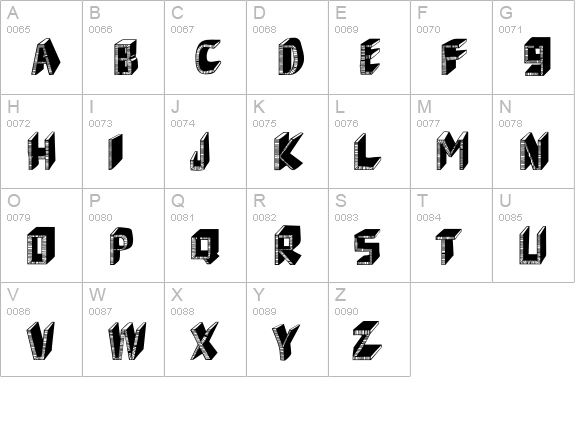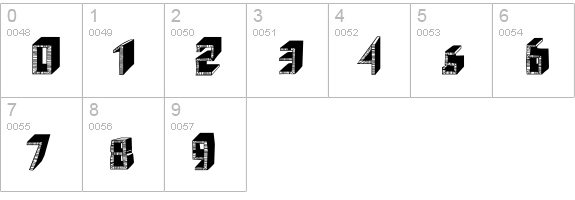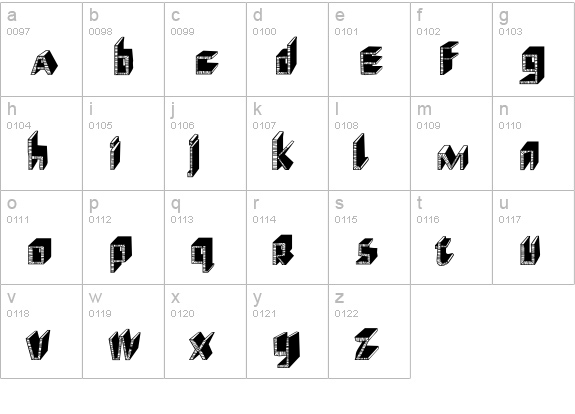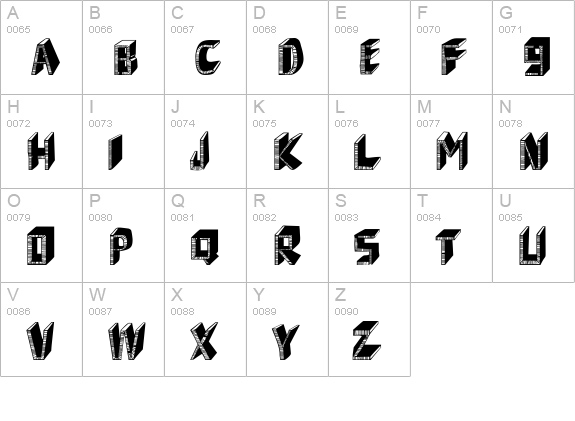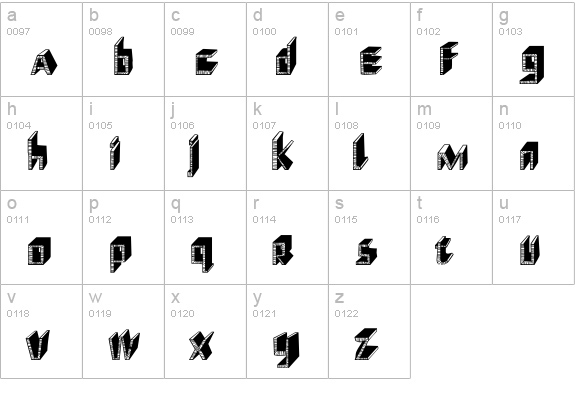
ShoeRepairs-Display Font Details
Introducing ShoeRepairs-Display, an exquisite display font that is here to elevate your designs to new heights. This stunning typeface combines elegance with a touch of vintage charm, making it the perfect choice for any project that requires a unique and eye-catching aesthetic. ShoeRepairs-Display exudes sophistication and professionalism, making it an ideal choice for branding, packaging, logos, headlines, and more. Its bold and distinctive letterforms demand attention and leave a lasting impression on your audience. But what truly sets ShoeRepairs-Display apart is its versatility and accessibility. This remarkable font is freely available to download at FontsMarket.com, allowing you to effortlessly incorporate its beauty into your designs without any additional cost. Now, you can access this exceptional typeface and take your creative endeavors to the next level without breaking the bank. Whether you're a professional designer seeking a new tool in your creative arsenal or a beginner looking to experiment with captivating typography, ShoeRepairs-Display is your go-to font. Its clean and legible design ensures readability in various sizes and contexts, making it suitable for both digital and print projects. With ShoeRepairs-Display, you'll enjoy the freedom to express your unique style and captivate your audience with every letter. So why wait? Download this exceptional font today from FontsMarket.com and unlock a world of design possibilities that are both remarkable and free.